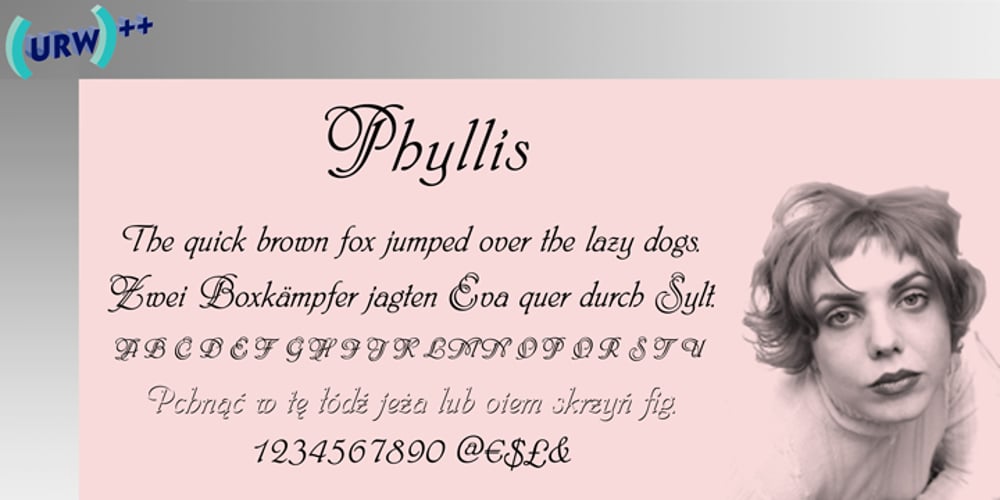
Phyllis Font Family was designed by Heinrich Wieynck and published by URW Type Foundry. Phyllis contains 4 styles and family package options. Phyllis was designed by Heinrich Wieynck in 1904. The Phyllis font has a suite of alternative initials that provide a flourish to an otherwise modest script.